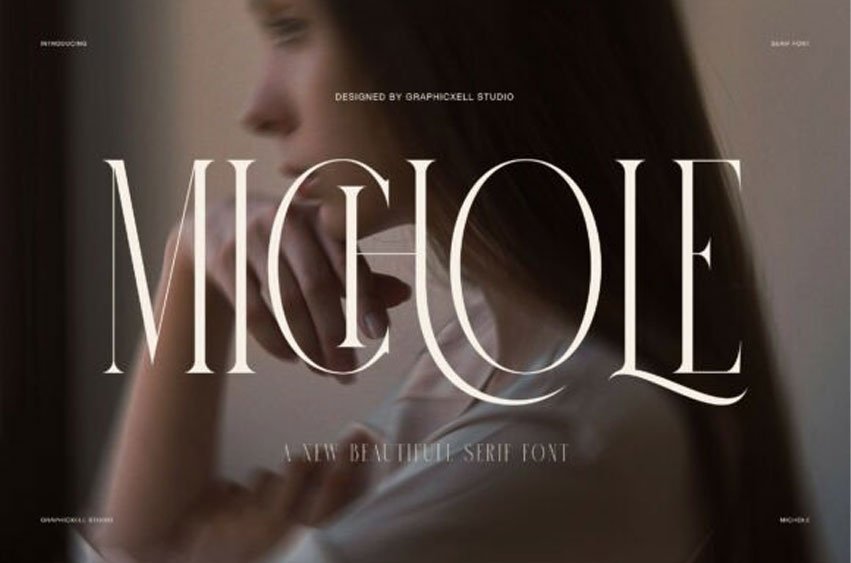
Michole Font
Michole Font is an elegant serif font with a slim, graceful, and modern look. It blends tall letterforms, fine stroke contrast, and soft curves into a style that feels calm, refined, and luxurious. At first glance, the font looks clean and high end. However, it also carries a gentle warmth, so it feels inviting as well as stylish.
The beauty of Michole comes from its narrow shape and long vertical rhythm. Each letter looks neat and balanced, while the thin serif details give the font a polished finish. In addition, the curved forms add softness to the overall look. Because of that, Michole feels both timeless and fresh.